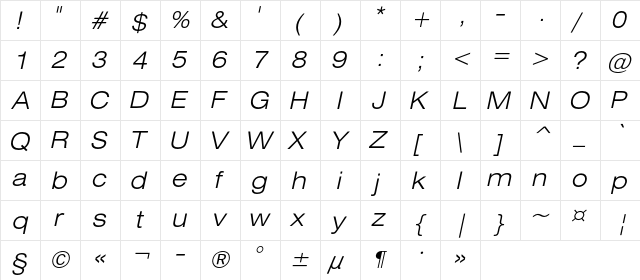
HeliosExtLight Italic Font Preview
HeliosExtLight Italic
Design Context for HeliosExtLight Typeface
HeliosExtLight is a composed and adaptable typeface that performs quietly and consistently across a wide range of design contexts. The slanted form adds forward momentum and visual energy. The delicate stroke weight brings airiness and refinement to layouts.
Pro Tip: Try HeliosExtLight for annotation and caption copy alongside an upright companion — the contrast in angle creates a dynamic but ordered typographic system.